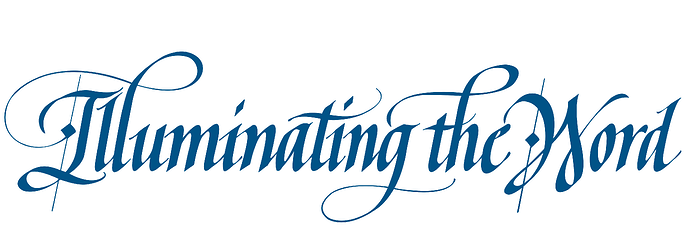
Although it’s possible to simulate handwriting with the help of OpenType features, I think that example may be handwritten. Take a close look at the two occurrences of ‘i’ in ‘Illuminating’, where I can see several differences.